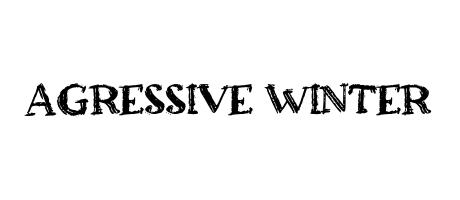
A Agressive Winter
Aggressive Winter is a bold, hand-drawn serif typeface. Its rugged texture and slightly uneven letterforms evoke a sense of raw energy and winter's harshness. The serifs are chunky and roughly hewn, adding to the overall aggressive and somewhat distressed aesthetic. It's a font that feels both powerful and untamed.